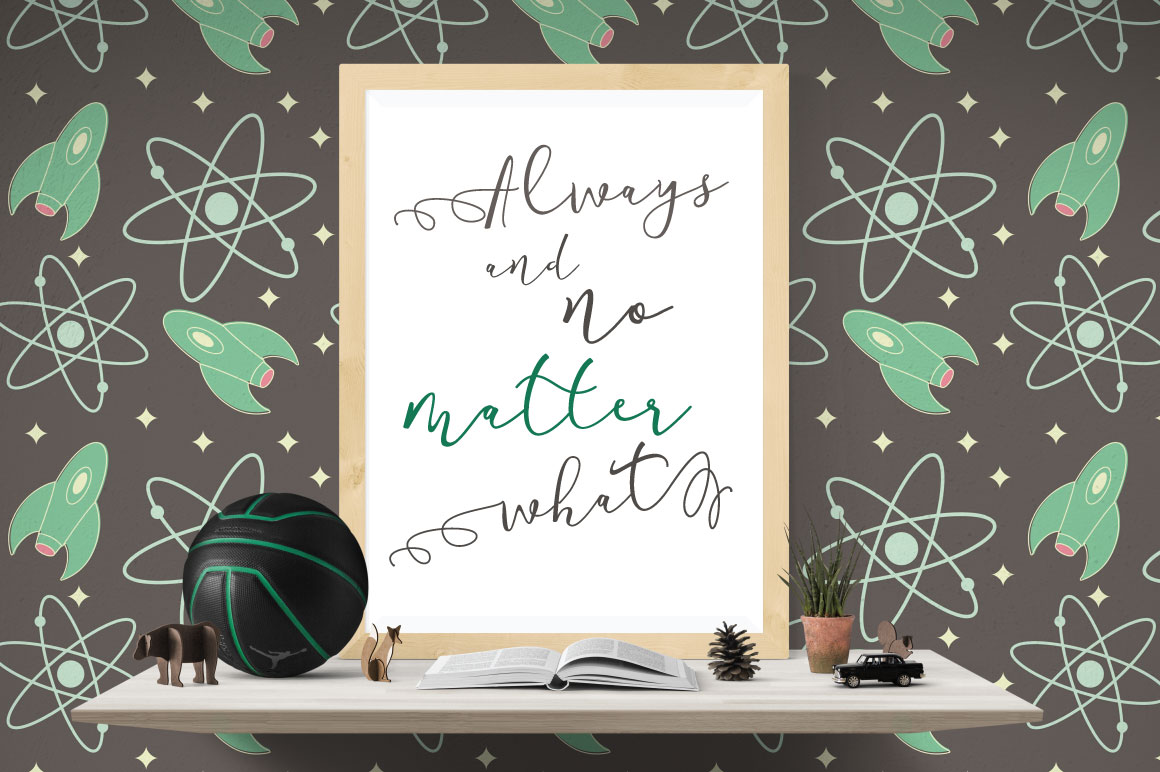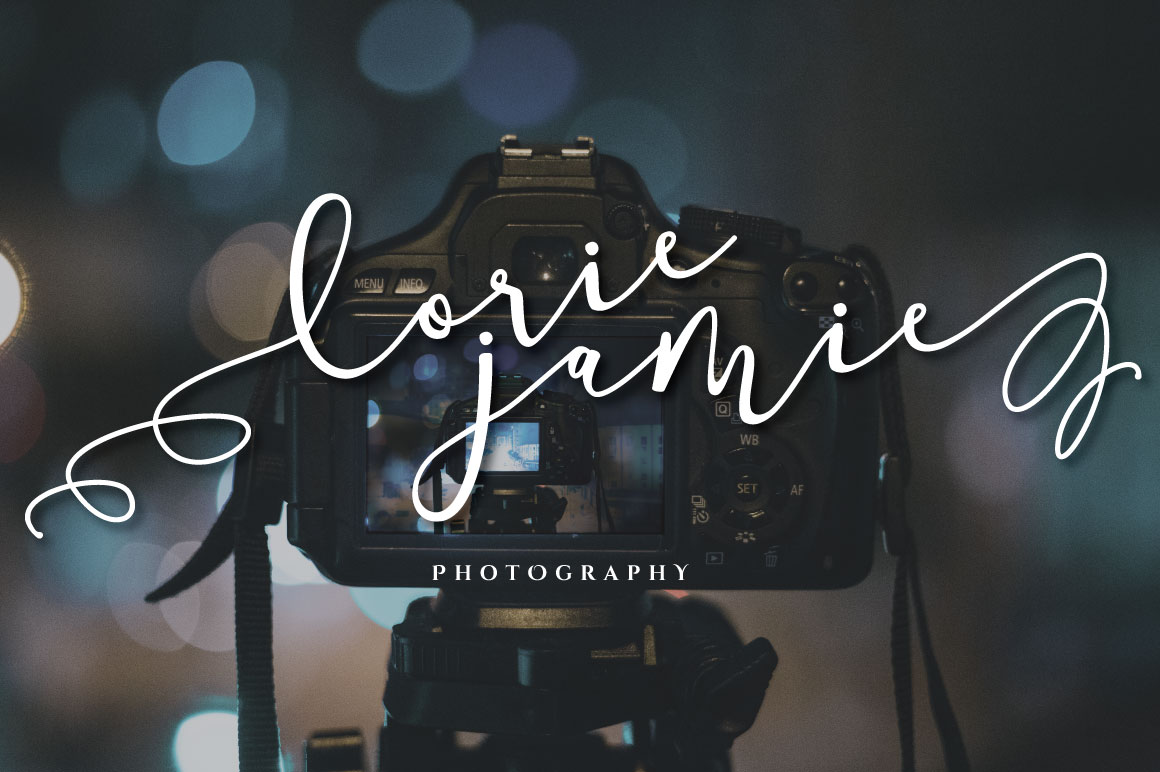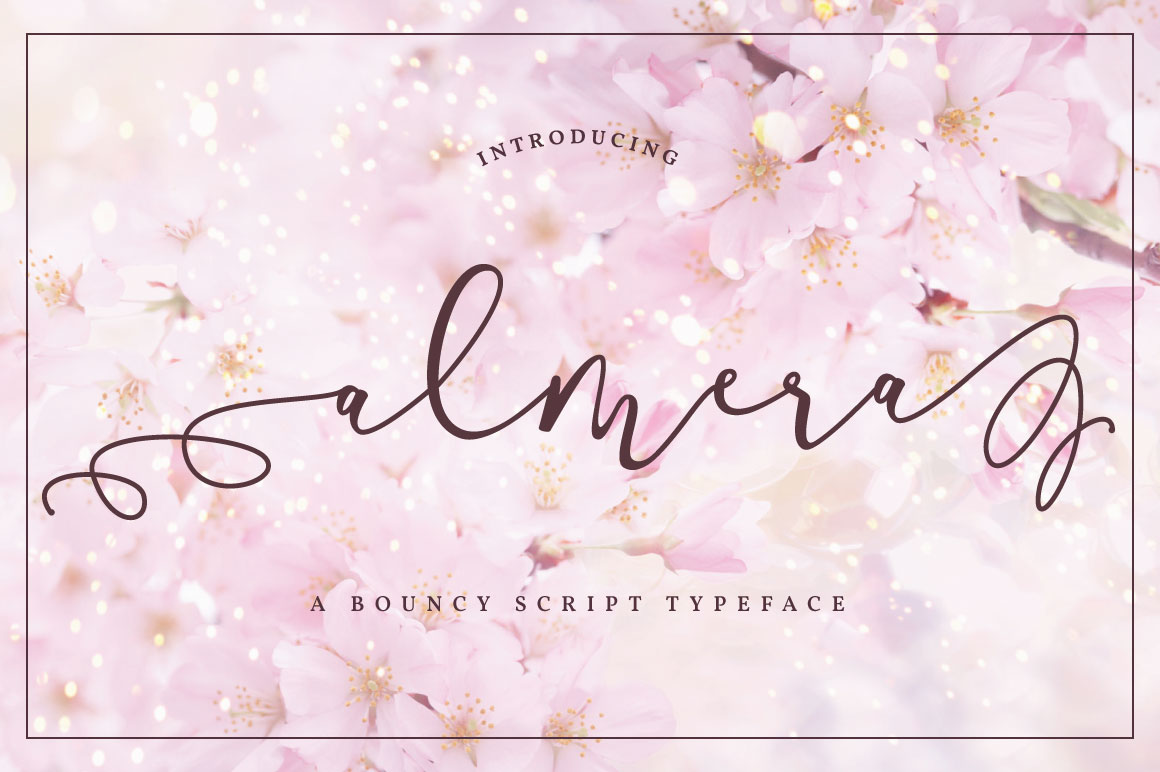
Almera Script
Almera Script Font
Almera is a bouncy and dancing baseline calligraphy script designed with mind is guaranteed to give you in creating beautiful hand-made typography within a second. 😉 Use Almera to help you create custom hand-lettering with the look of energetic hand lettering and twirling baseline.
Handwritten typeface with initial and end swashes option which allow you to create different feels for different projects. Ligatures also accessible for some characters to create more natural look. Try swapping between the regular and swashes characters to get the best layout for your text.
Almera script is perfect for logos, websites, invitations, greeting cards, magazines, business cards, packaging and many more! Be a perfect professional in a minute and start creating contemporary script designs.